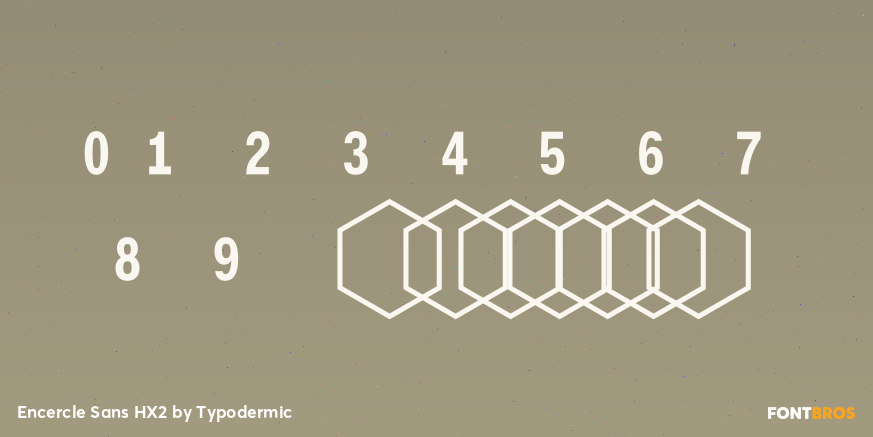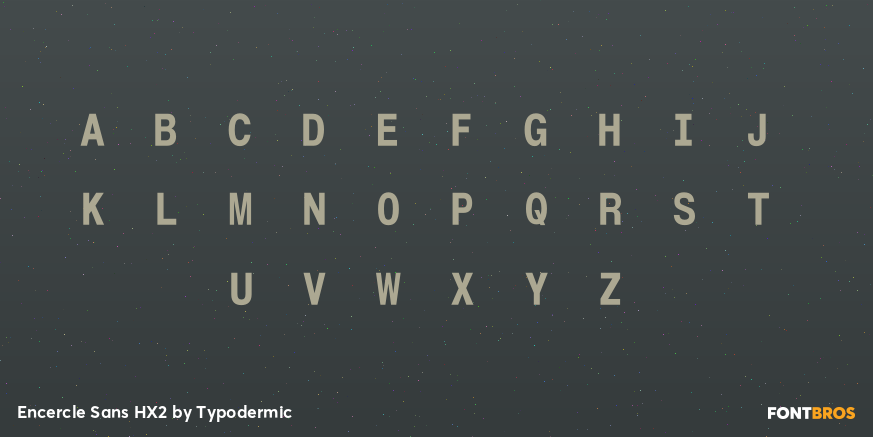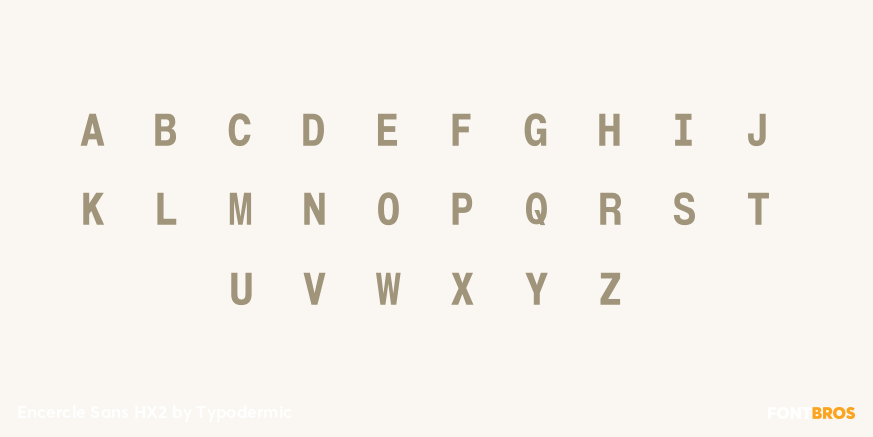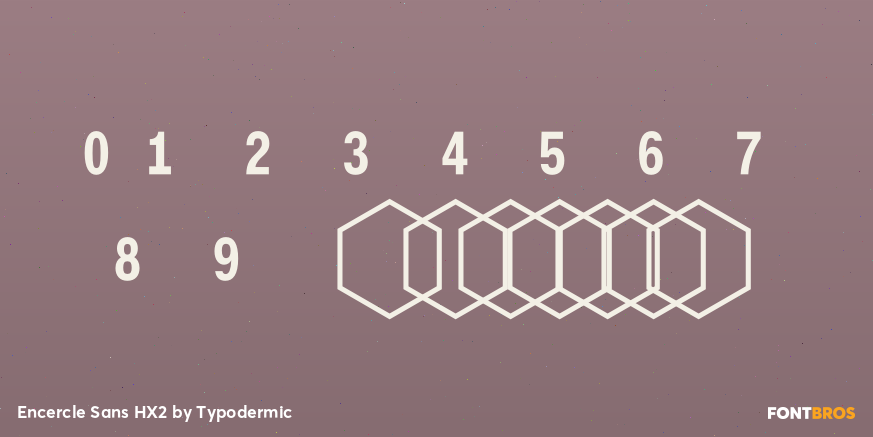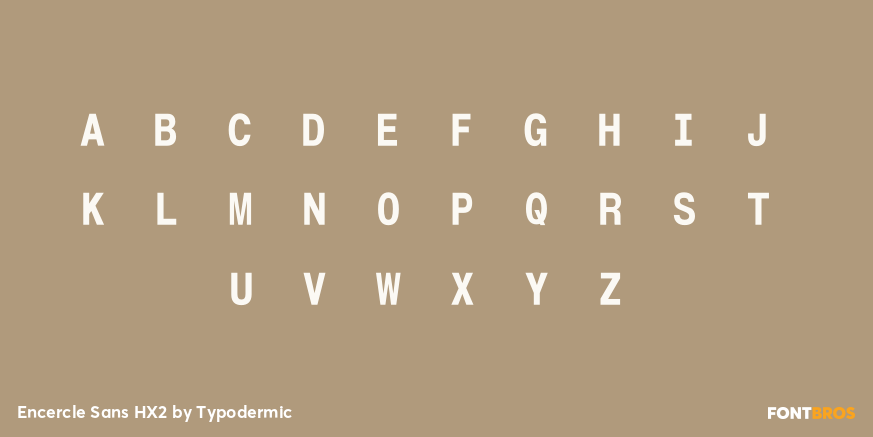
Encercle Sans HX2
Buy NowEncercle Sans HX2 frames labels in a vertically oriented hexagon, producing a taller, more compact footprint for layouts built in columns. HX2 Bold reverses the marker into a solid field with light lettering. It is an inverse display state rather than merely a bolder outline.
Use HX2 for floor and shaft identifiers, elevator diagrams, stacked control-panel references, and vertical architectural callouts where markers must fit narrow bays. It supports searches for a vertical-hexagon font, floor-marker font, or compact architectural label typeface.